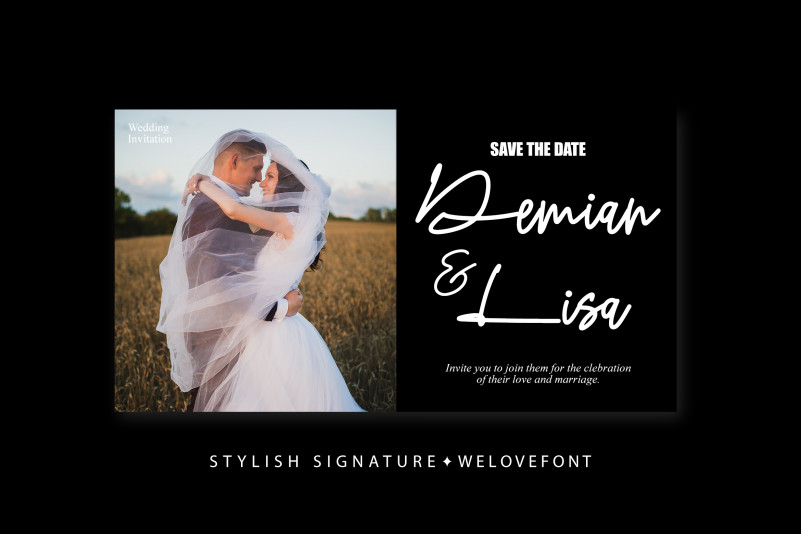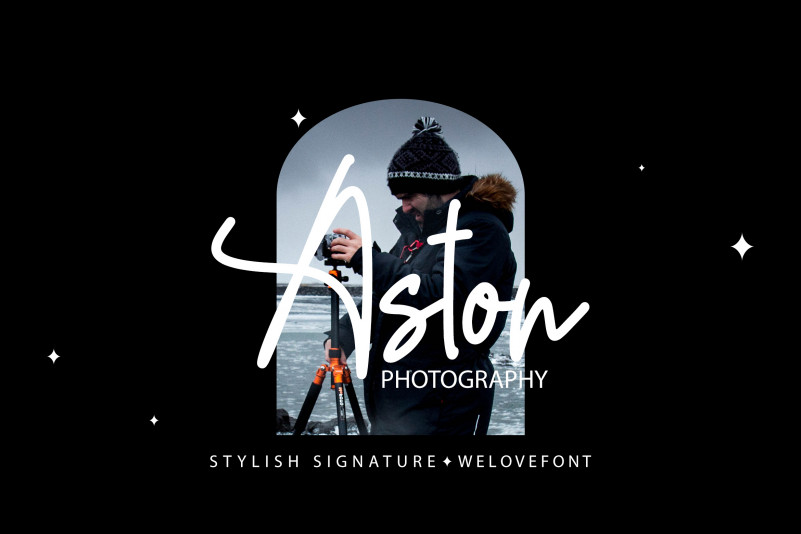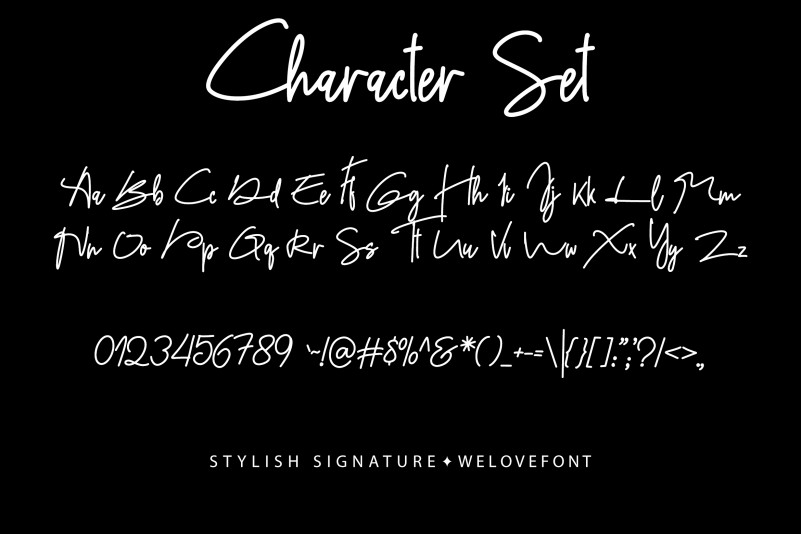
Blessed Font
Blessed Handwritten Font
This is a sleek and slim handwritten font. With an exquisite style and a modern vibe, this typeface would make a wonderful addition to any crafty project!